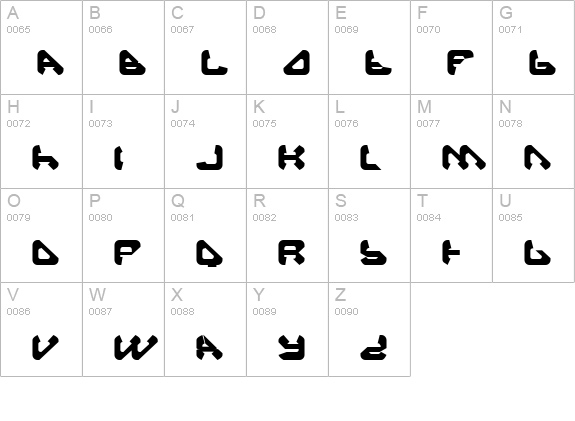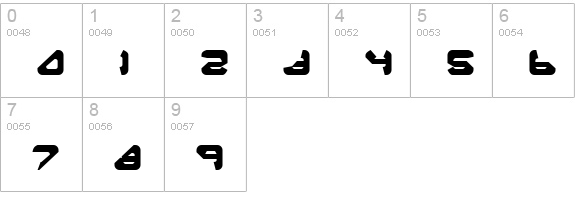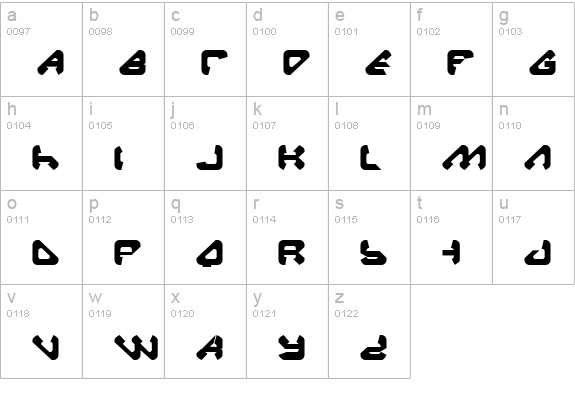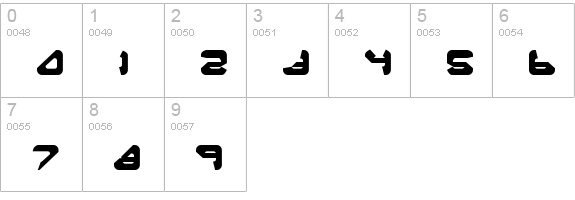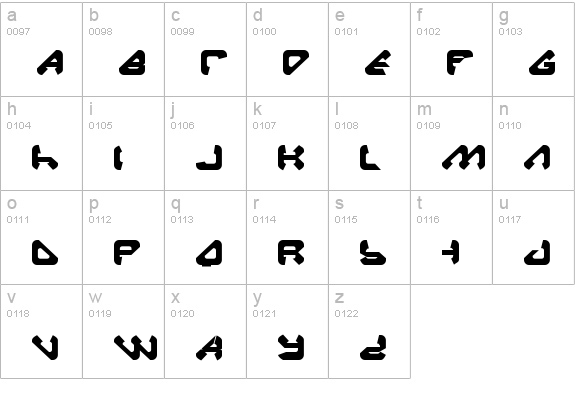
Backup Generation 1 Font Details
Backup Generation 1 font is a versatile and modern typeface that exudes creativity and innovation. With its clean lines and bold design, this font is perfect for any project that requires a strong and impactful visual presence. What sets Backup Generation 1 font apart is not only its aesthetic appeal, but also the fact that it is available for free download at FontsMarket.com. This means that anyone can access and use this font without any cost, making it an ideal choice for budget-conscious individuals and businesses. Whether you are designing a logo, creating a poster, or crafting a website, Backup Generation 1 font will elevate your project to new heights. Its unique character and attention to detail will make your text stand out, capturing the attention of your audience and leaving a lasting impression. With Backup Generation 1 font, the possibilities are endless. Its wide range of weights and styles allows for limitless creativity, giving you the freedom to experiment and explore different design options. Whether you prefer a bold and impactful look or a more subtle and elegant style, this font has got you covered. So why wait? Go ahead and download Backup Generation 1 font for free at FontsMarket.com. Unleash your creativity and take your designs to the next level with this exceptional typeface. Don't miss out on the opportunity to enhance your projects with a font that is both visually stunning and freely available. Get Backup Generation 1 font today and unlock a world of design possibilities.